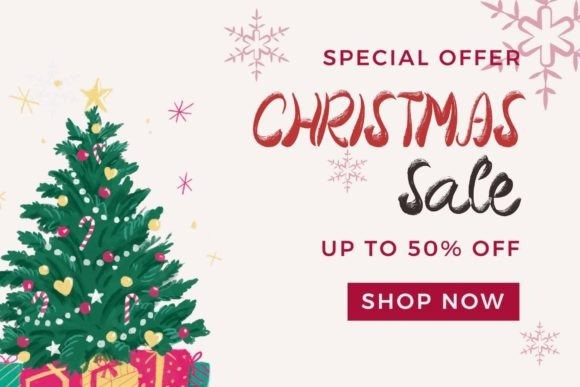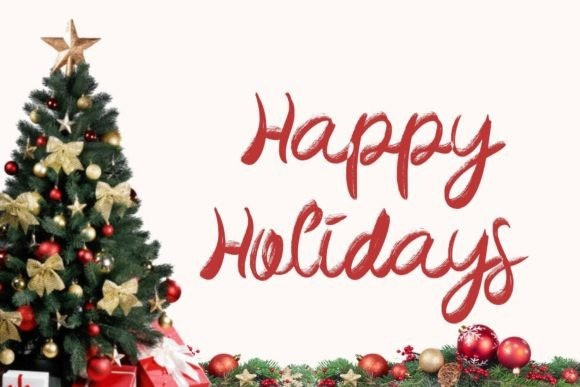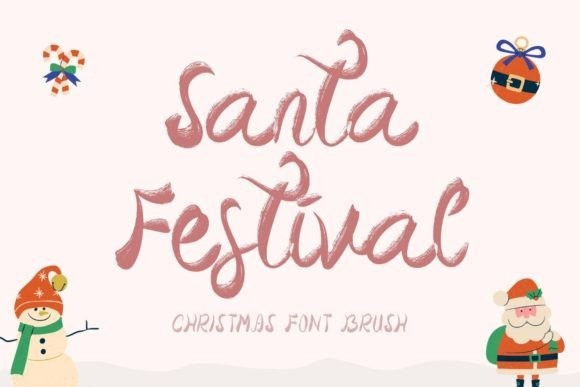
Santa Festival Font
Santa Festival Font,  is a unique and elegant brush font. This font is perfect for Christmas, Halloween, back to school, invitations, stickers, banners, posters, branding, and more. Equipped with uppercase, lowercase, numerals, punctuation, and multilingual support.